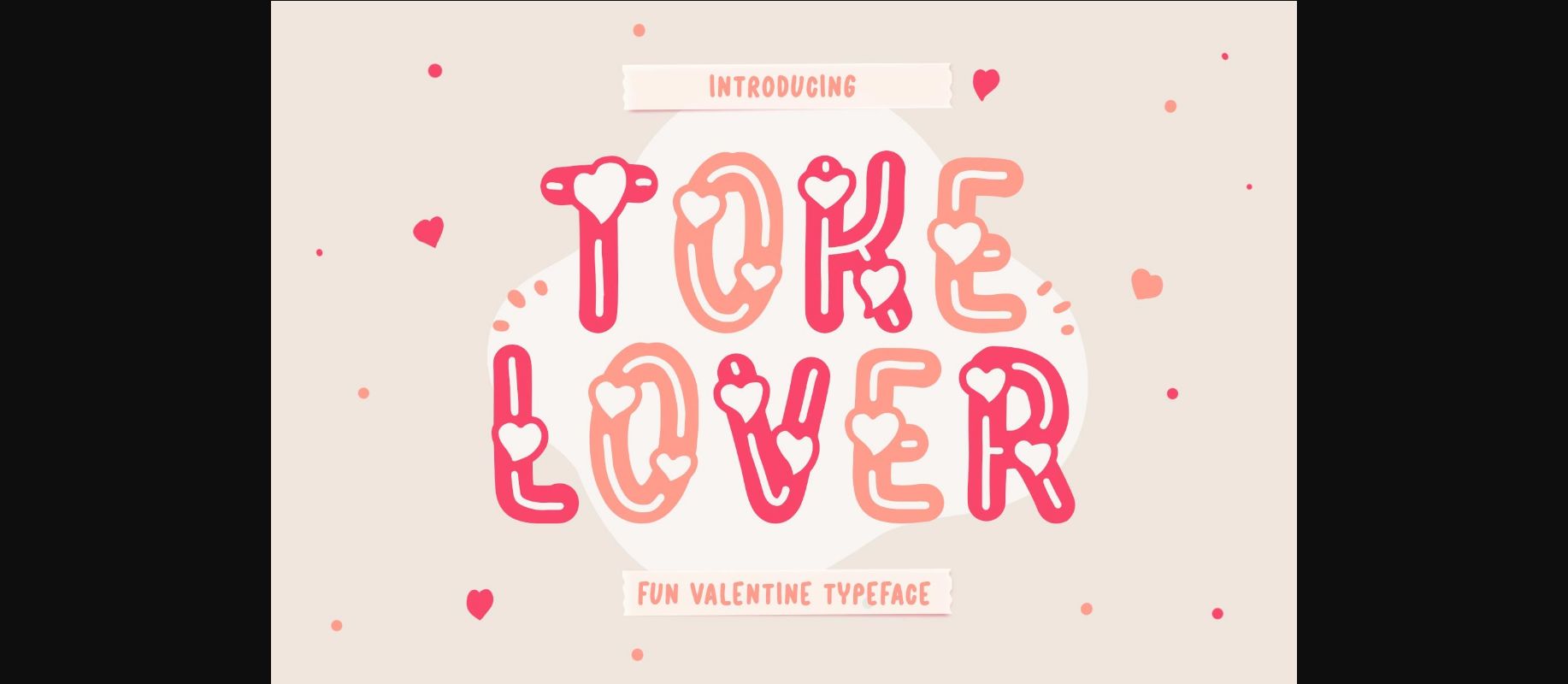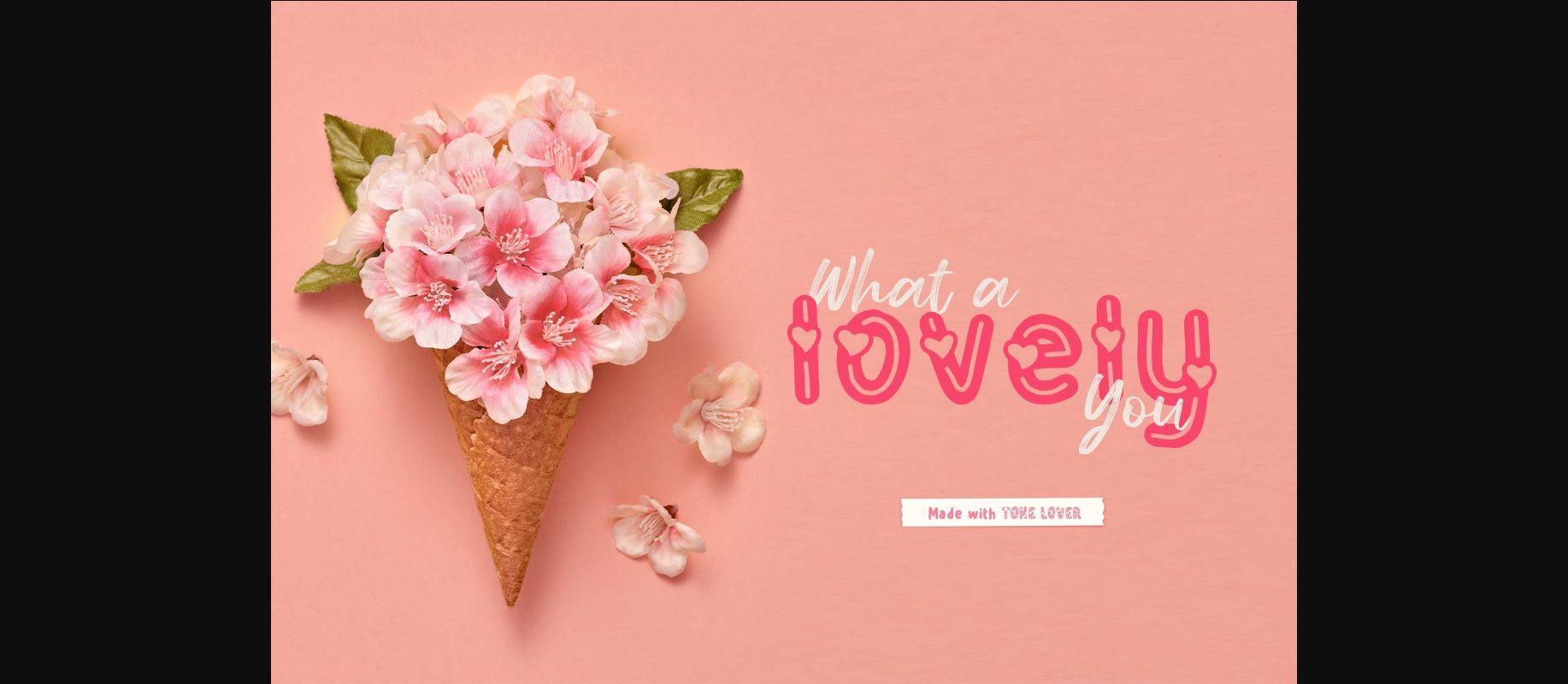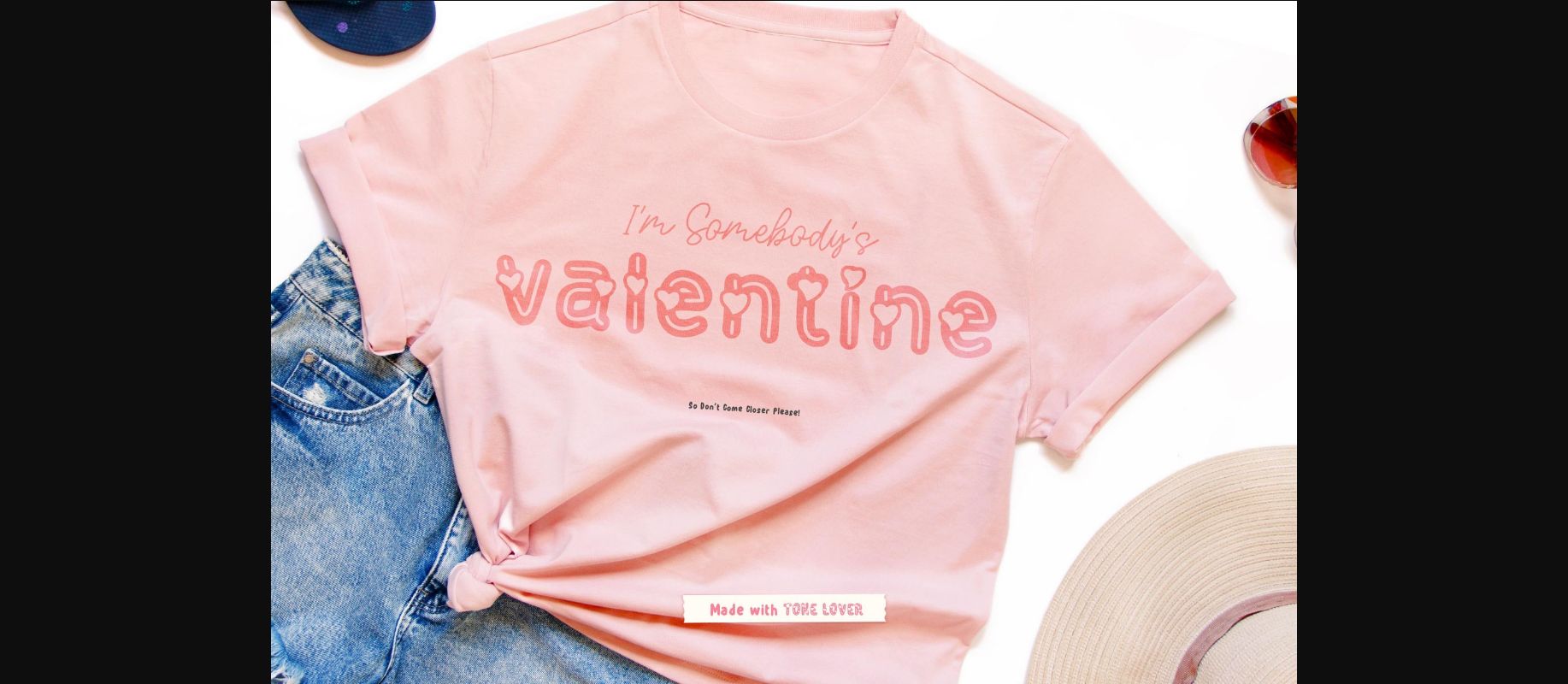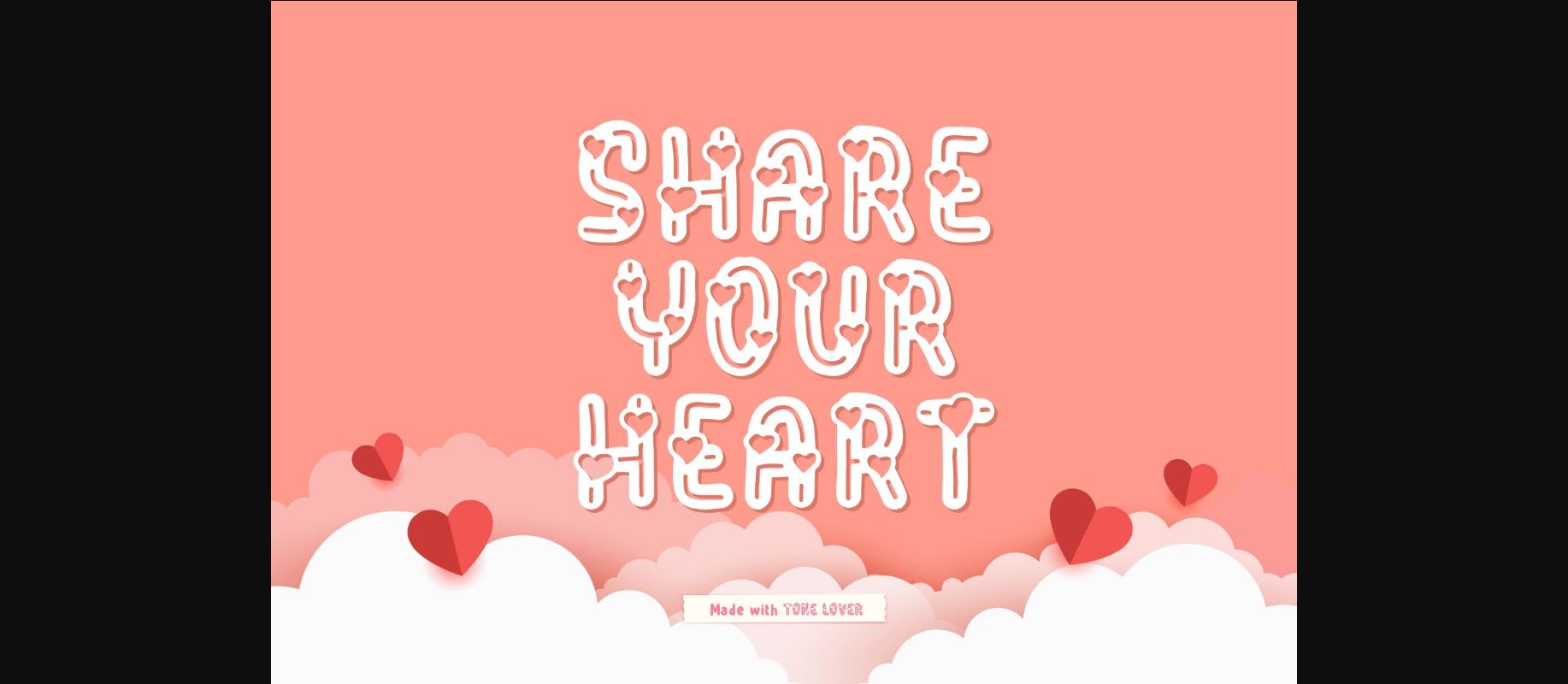
About Toke Lover Font
Toke Lover is a decorative font inspired by Valentine’s Day’s romance, perfect for making greeting cards, Instagram posts, logo designs, wedding texts, romantic quotes, and many more! Add it to your most creative ideas, and notice how it makes them come alive!